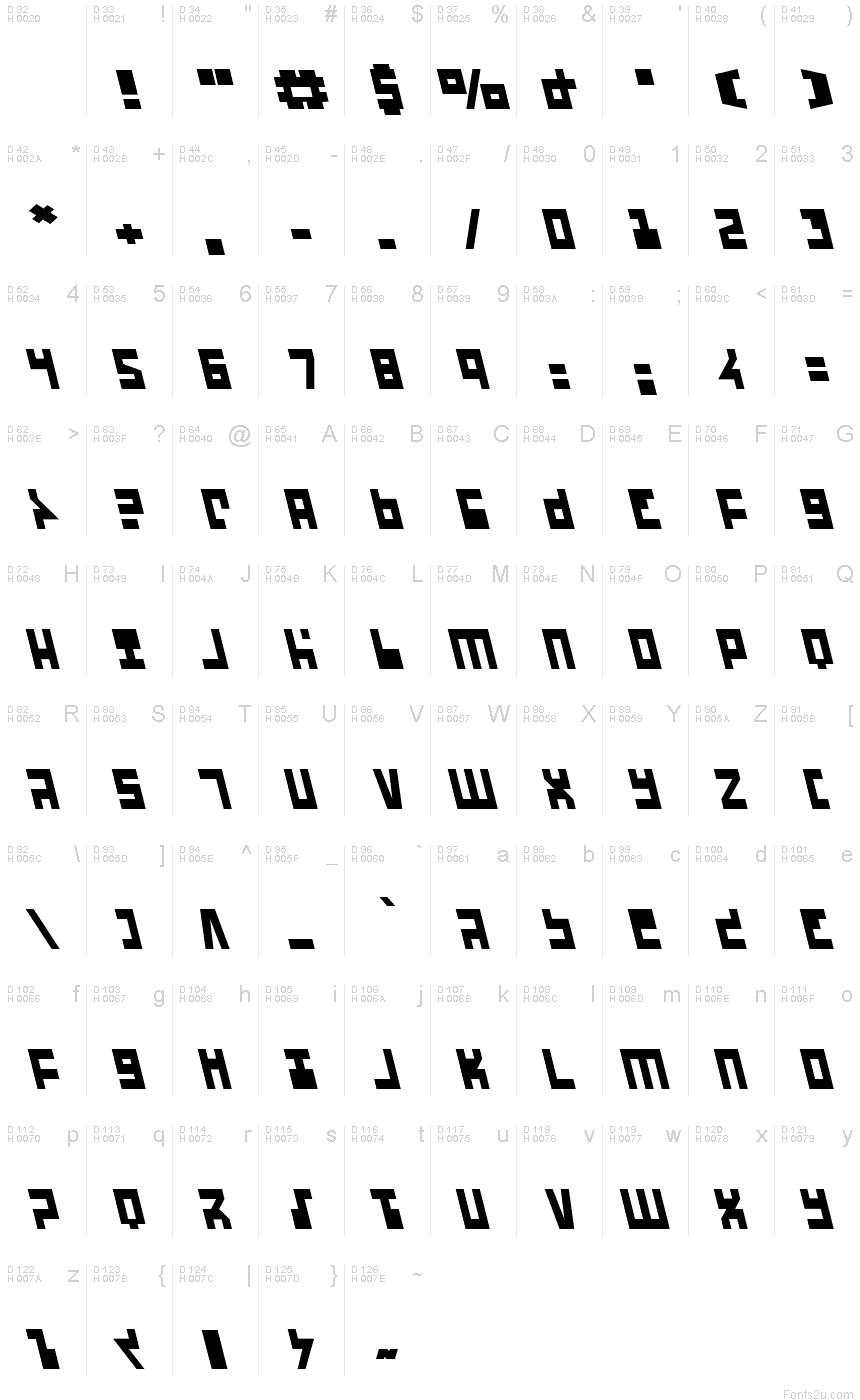
UFO Hunter Leftalic by Daniel Zadorozny of Iconian Fonts is a free futuristic display font with a forceful backward slant. Its blocky capitals are built from sharp diagonals and broad geometric strokes, cut by stark rectangular gaps. The repeated lean makes the lettering look fast and slightly unstable.
It can turn an entertainment title into part of a sci-fi interface, and also fits game packaging, music posters, and space-themed merchandise. Its clearest role is a tense screen title.